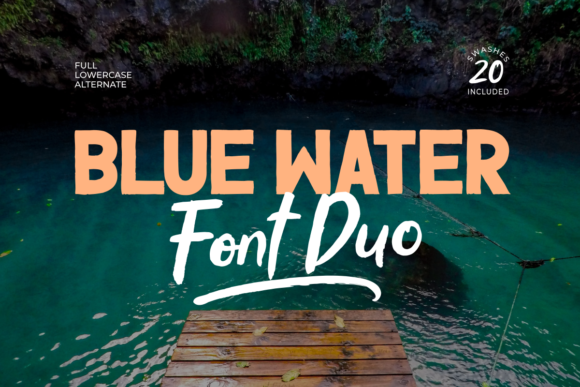
The Ultimate Guide to Blue Water Bold Duo Font: Elevate Your Designs with Chic and Cheery Style
An Honest Review of Blue Water Bold Duo Font
- 💯 Perfect pairing: The two fonts in this duo are designed to complement each other seamlessly, making it easy to create visually appealing designs.
- 🎨 Highly versatile: Whether you’re working on a craft project, a branding campaign, or a social media graphic, Blue Water Bold Duo Font adapts effortlessly.
- 🔍 PUA encoded: With PUA encoding, accessing glyphs and swashes is a breeze, giving you endless creative possibilities.
- 👍 Chic and cheery: This font duo brings a fresh, cheerful vibe to any design, perfect for projects that need a bit of whimsy.
While Blue Water Bold Duo Font is amazing, there are a few minor things to keep in mind:
- 🤔 Limited use in very formal designs: Due to its playful nature, this font might not be the best fit for very formal or corporate projects.
Blue Water Bold Duo Font was created with the intention of capturing the carefree spirit of a perfect summer day. The designers aimed to create a font that would evoke feelings of happiness and freshness, perfect for crafters, designers, and hobbyists looking to add a personal touch to their projects.
Q: Is Blue Water Bold Duo Font suitable for body text?
A: While it’s primarily designed for headlines and decorative text, you can use it for short paragraphs of body text if you want to add a playful touch.
Blue Water Bold Duo Font is a versatile and stylish addition to any designer’s toolkit. Its unique blend of chic and cheery vibes makes it perfect for a wide range of projects. With its ease of use and extensive features, you’ll wonder how you ever managed without it! 🎉